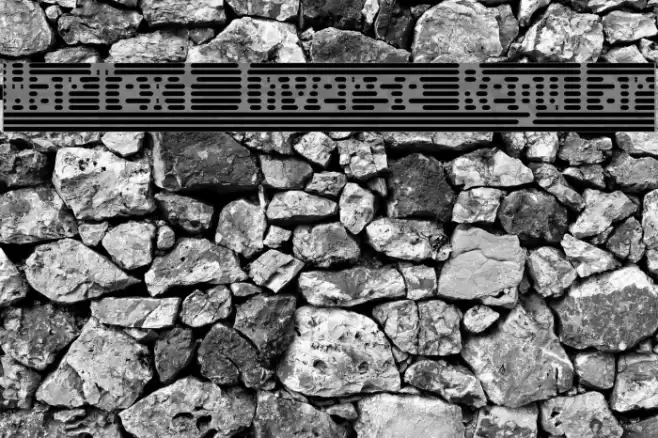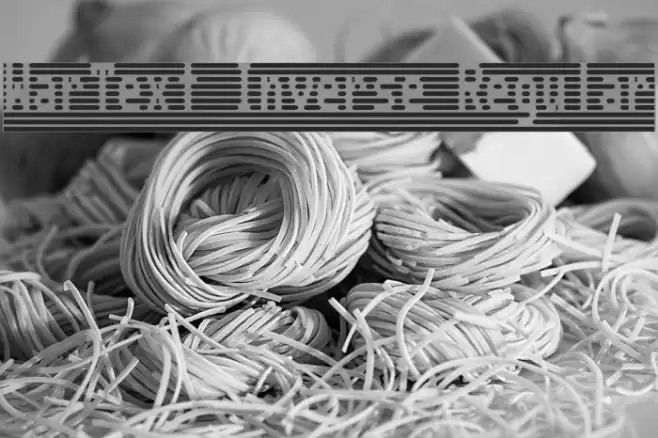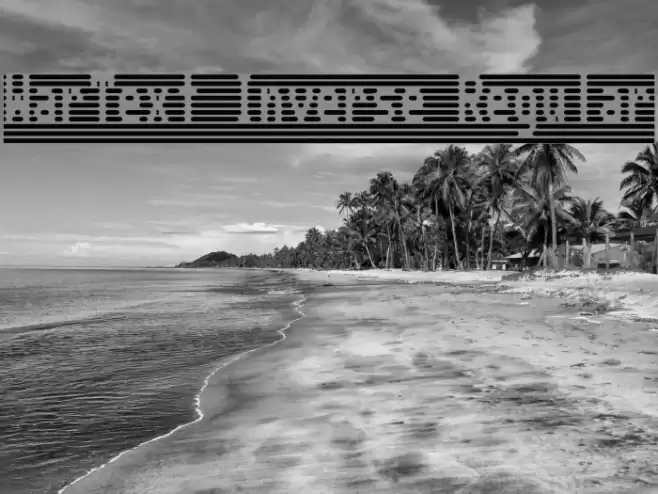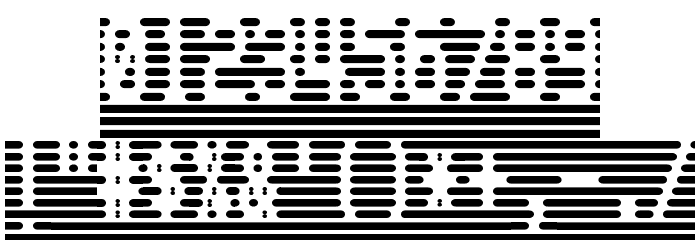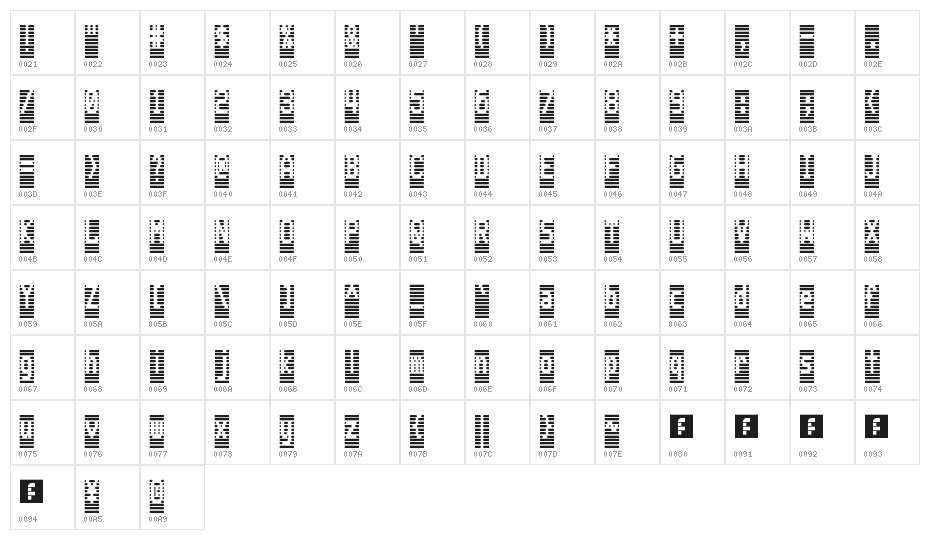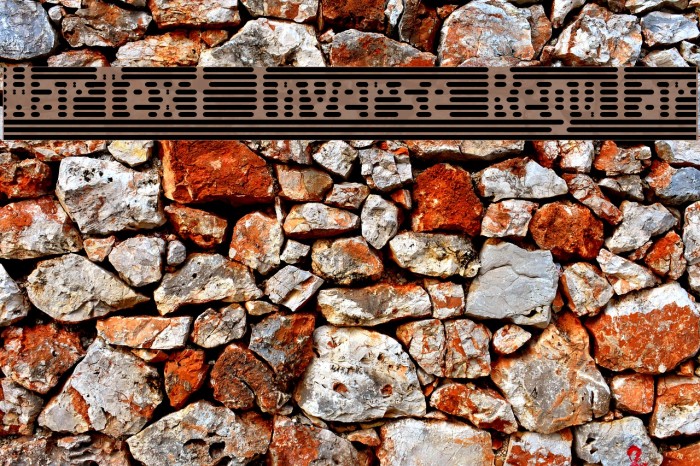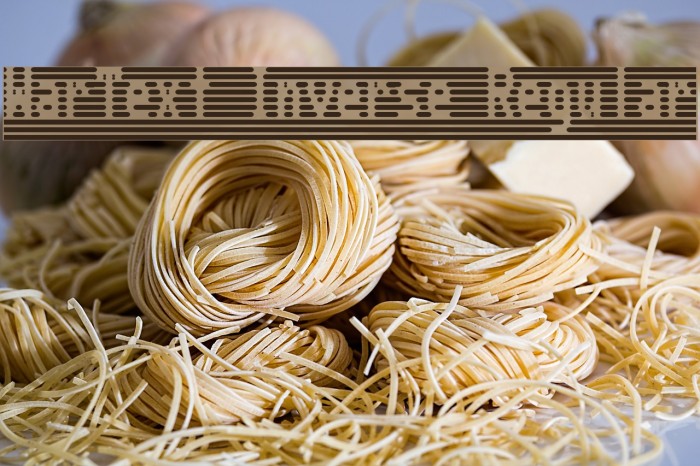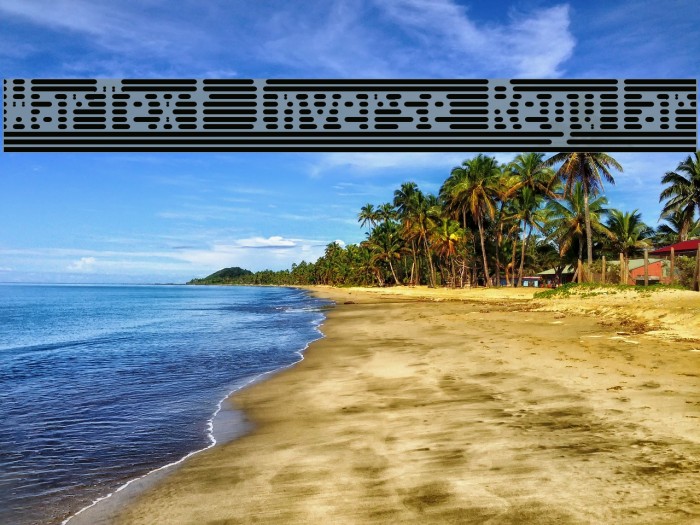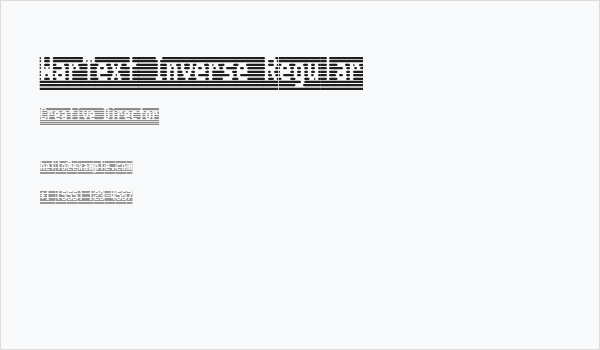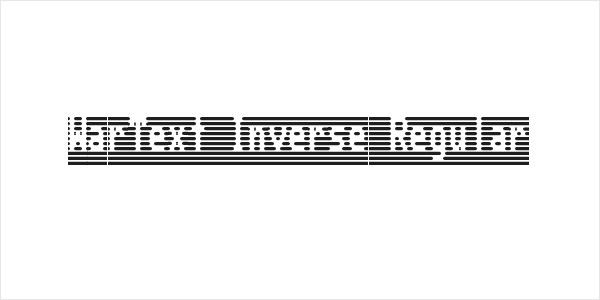
WarText Inverse Regular Font
WarText Inverse Regular Description
This font features a highly decorative and abstract design, characterized by its unique use of horizontal lines and dots to form each character. The letters are composed of a series of parallel lines, creating a visually striking pattern that resembles a digital or futuristic style. The font maintains a consistent structure across all characters, with each letter and number crafted from a combination of thick and thin lines, providing a sense of rhythm and movement. The special characters are similarly styled, ensuring a cohesive look throughout. This font's intricate design makes it stand out, offering a bold and modern aesthetic.
A decorative font with a futuristic design using horizontal lines and dots.
- Proposed Projects: Ideal for digital art projects, futuristic branding, sci-fi themed designs, and modern posters.